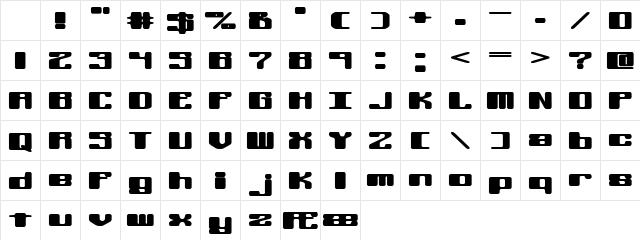
Off Kilter L BRK Regular
Design Context for Off Kilter L BRK
Off Kilter L BRK is a composed and adaptable typeface that performs quietly and consistently across a wide range of design contexts.
Pro Tip: Use Off Kilter L BRK in both headline and body roles to test its range before committing to a single application.